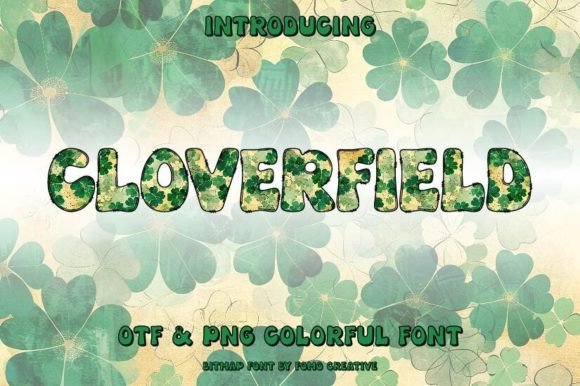
Cloverfield Font: Elevate Your Designs with Vibrant Color and Creativity
In the world of graphic design, fonts play a crucial role in conveying messages, expressing emotions, and capturing attention. Traditional fonts have been the staple of design for years, but with the evolution of technology, a new type of font has emerged: color fonts. Among these, the Cloverfield Font stands out as a remarkable example of innovation and creativity. In this article, we’ll explore the world of color fonts, their benefits, and how Cloverfield Font can elevate your designs to new heights.
What is a Color Font?
A color font, also known as a chromatic font, is a type of font that displays characters with additional color, gradients, or other visual effects. Unlike traditional fonts that have only one color, color fonts provide more artistic freedom and creativity in graphic design and text layout. This allows designers to add visually appealing and dynamic touches to their projects, making them more engaging and memorable.
The Uniqueness of Color Fonts
The uniqueness of color fonts lies in their ability to showcase rich and diverse colors, as well as visual effects like gradients, shadows, and transparency. This enables designers to express various styles and atmospheres in their work, ranging from bright and energetic to elegant and mysterious. Color fonts can be used to create stunning posters, flyers, brochures, greeting cards, and web designs that capture the audience’s attention and leave a lasting impression.
Cloverfield Font: A Revolutionary Color Font
Cloverfield Font is a remarkable example of a color font that offers a wide range of creative possibilities. This font is a type of Opentype-SVG font, which means it’s compatible with popular design software like PhotoShop, Illustrator, Silhouette, and Inkscape. With Cloverfield Font, designers can create breathtaking designs that showcase their creativity and skill.
Benefits of Using Color Fonts like Cloverfield
The benefits of using color fonts like Cloverfield are numerous:
- Enhanced creativity: Color fonts offer a wide range of creative possibilities, allowing designers to express themselves in new and innovative ways.
- Visual appeal: Color fonts can add a visually appealing and dynamic touch to designs, making them more engaging and memorable.
- Flexibility: Color fonts can be used in various design projects, from posters and flyers to web designs and social media graphics.
- Time-saving: With color fonts, designers can achieve complex designs with minimal effort, saving time and increasing productivity.
Tips for Using Cloverfield Font and Color Fonts in General
To get the most out of Cloverfield Font and color fonts in general, here are some valuable tips:
- Experiment with different colors and effects: Don’t be afraid to try out different colors and effects to find the perfect combination for your design.
- Keep it simple: While color fonts offer a lot of creative possibilities, it’s essential to keep your design simple and focused to avoid visual overload.
- Use them sparingly: Color fonts can be attention-grabbing, but using them sparingly will make them more effective and prevent visual fatigue.
- Pair them with neutral fonts: Pairing color fonts with neutral fonts will create a beautiful contrast and make your design more readable.
In conclusion, Cloverfield Font is a revolutionary color font that offers a wide range of creative possibilities for designers. With its vibrant colors, gradients, and visual effects, this font can elevate your designs to new heights and make them more engaging and memorable. By understanding the benefits and technical details of color fonts like Cloverfield, you can unlock new creative possibilities and take your designs to the next level.